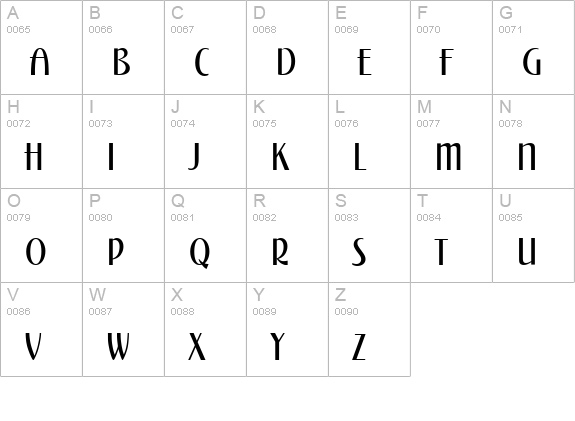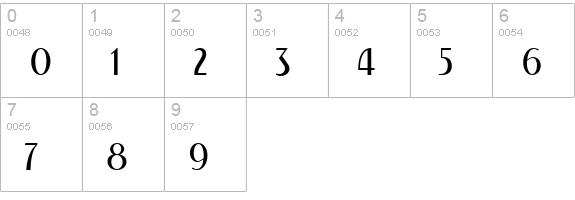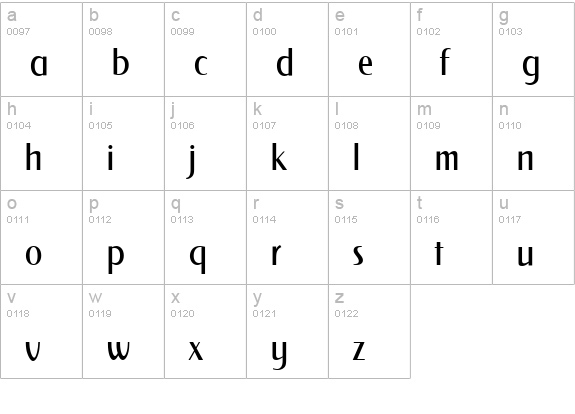
SaintLouisLight Font Details
SaintLouisLight is a captivating and elegant font that exudes a sense of sophistication and refinement. With its delicate curves and graceful strokes, this font is perfect for adding a touch of class to any design project. The beauty of SaintLouisLight lies in its versatility. Whether you are creating an invitation for a formal event, designing a logo for a high-end brand, or crafting a stylish website, this font will effortlessly elevate your work to new heights. One of the most appealing aspects of SaintLouisLight is that it is free. That's right, you can download this exquisite font without spending a single penny. Thanks to FontsMarket.com, you can easily access this font and unleash your creativity without any financial constraints. With its clean and legible letterforms, SaintLouisLight ensures that your message is conveyed with clarity and precision. The subtle variations in line thickness add a touch of personality and uniqueness to each character, making this font truly stand out from the crowd. Whether you are a professional designer or a budding creative, SaintLouisLight is a must-have addition to your font collection. Its timeless beauty and effortless charm will inspire you to create stunning designs that leave a lasting impression. So why wait? Head over to FontsMarket.com and download SaintLouisLight today. With this incredible font at your fingertips, the possibilities are endless. Let your imagination run wild and watch as your designs come to life with the elegance and sophistication of SaintLouisLight.